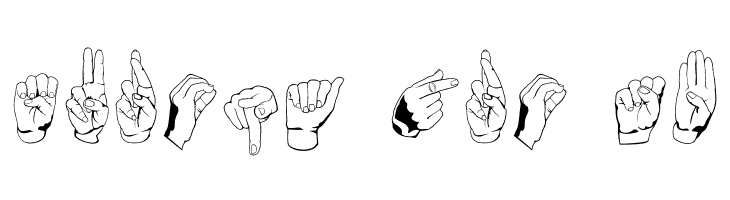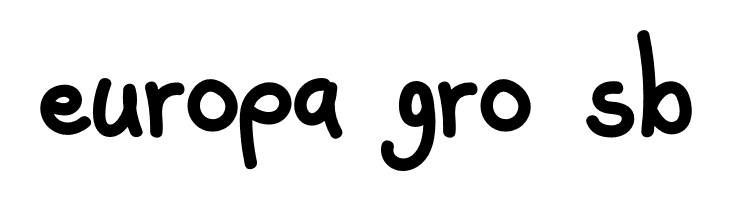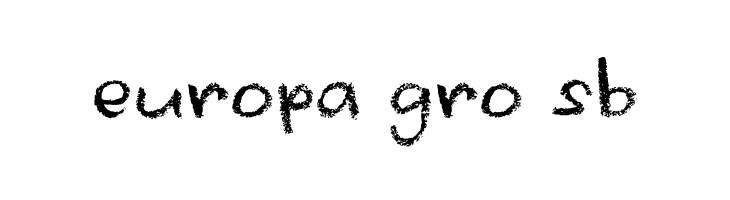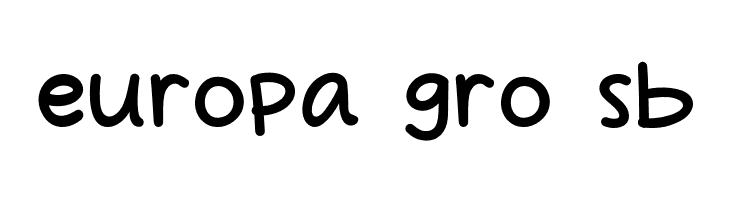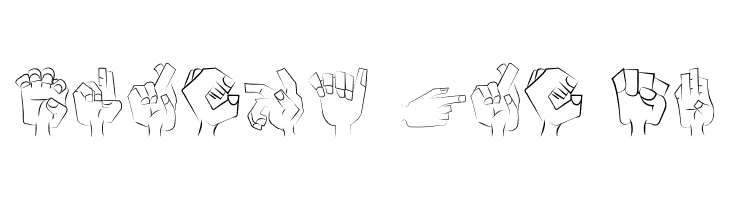
A playful, handwritten font with a whimsical and informal style.
A playful, casual handwritten font with smooth, rounded edges and consistent strokes.
A creative font inspired by American Sign Language, featuring hand gesture representations for each character.
A playful, hand-drawn font with rounded, bubbly characters.
A playful, crayon-like font with a hand-drawn, textured appearance.
A playful, hand-drawn font with a whimsical and informal style.
A hand-drawn font based on sign language gestures.
A playful, childlike font with rounded, uneven strokes and a whimsical appearance.
A playful, rounded font with a hand-drawn, youthful appearance.
A hand-drawn font using sign language gestures for each character.